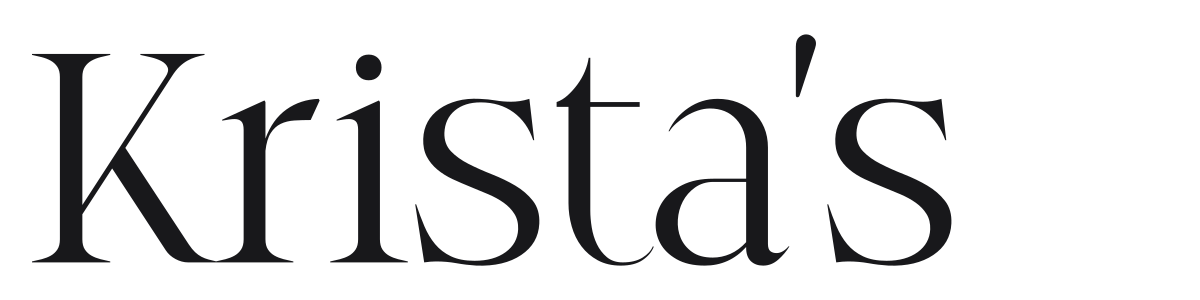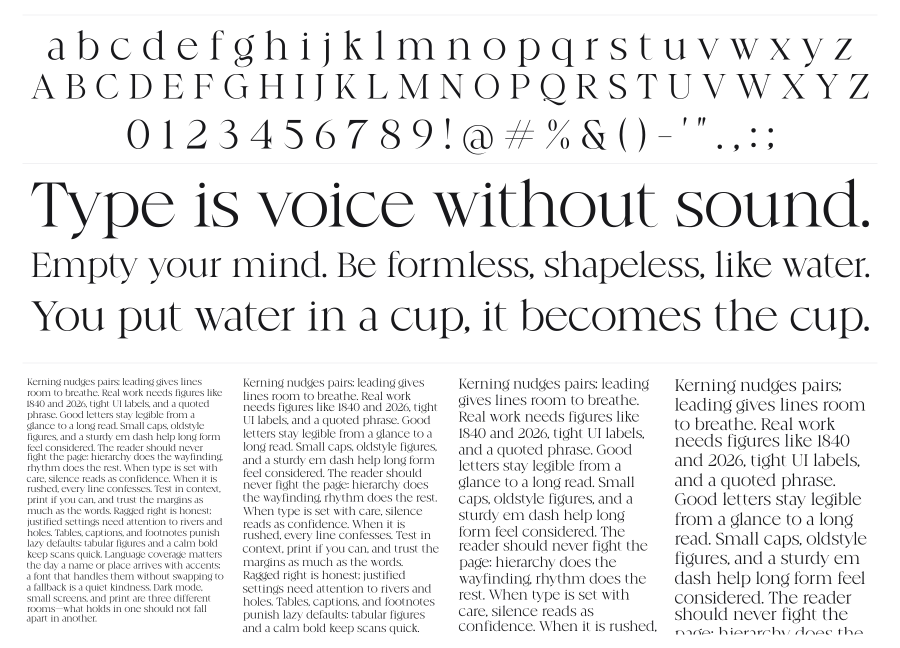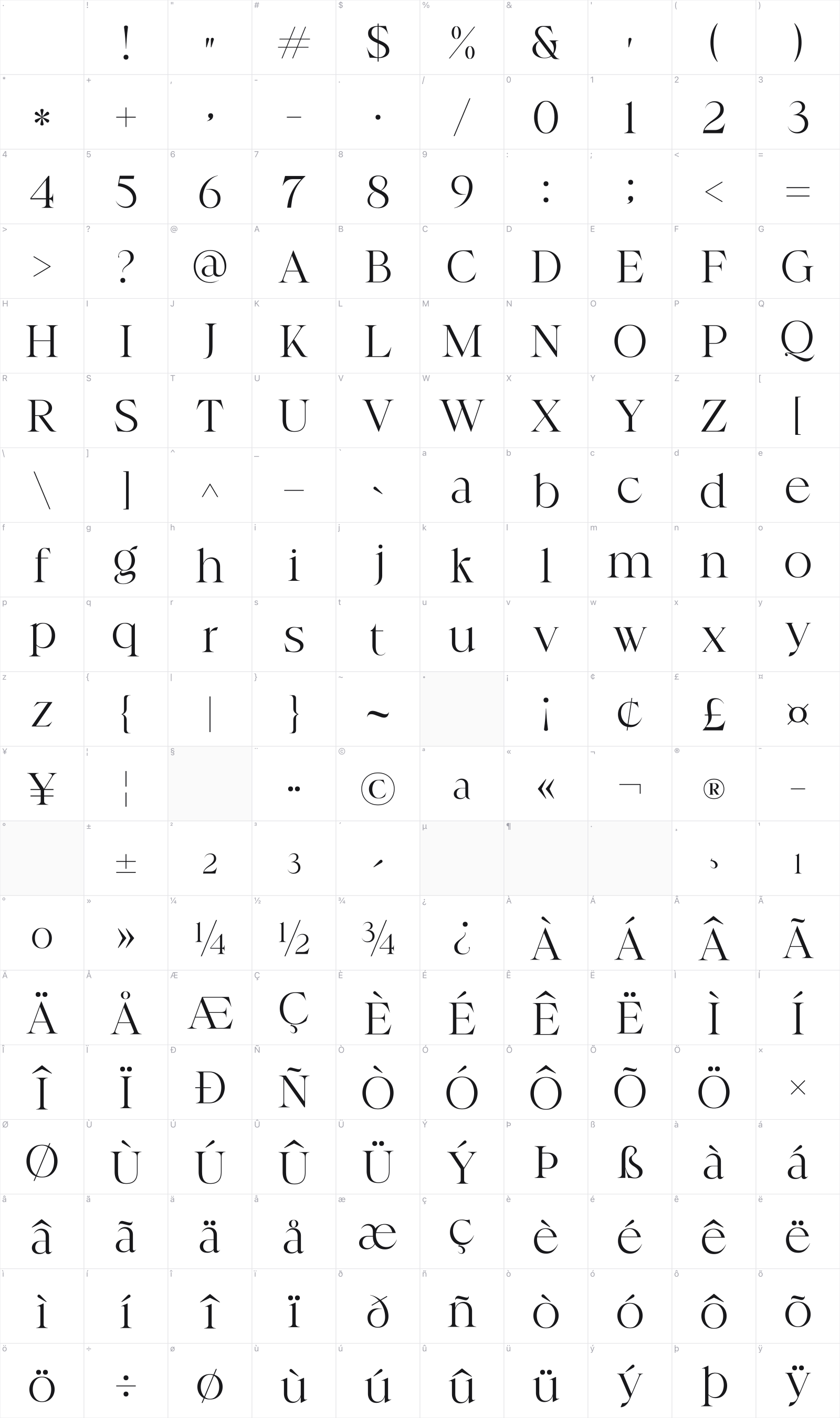
Krista's
Krista's is a high-contrast modern serif in the Didone tradition, pairing hairline horizontals against strong vertical stems for a look that reads as quietly luxurious. The light overall weight and generous proportions keep it airy and approachable rather than severe. It fits naturally in fashion branding, editorial headlines, and beauty packaging where elegance is the priority.